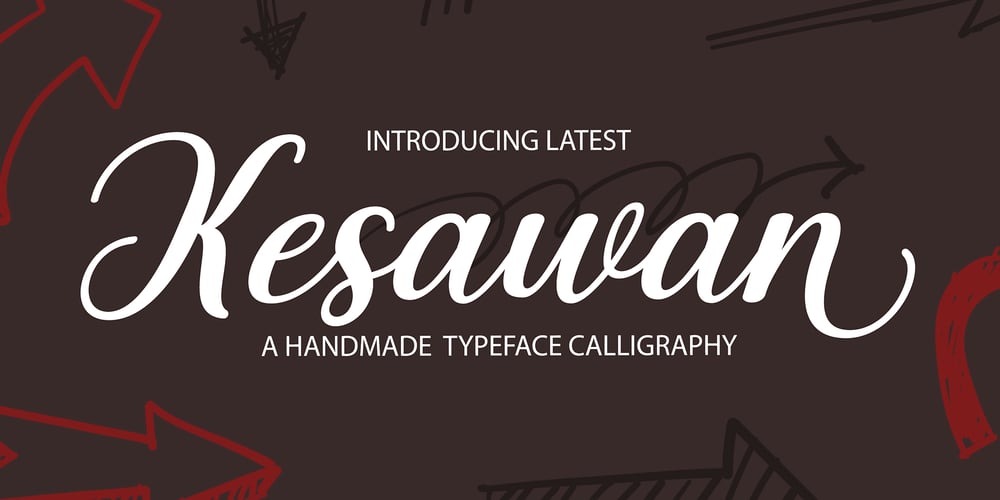
Kesawan Script Font Family was designed by Afri Giani and published by Gian Studio. Kesawan Script contains 1 styles and family package options. Introducing the new elegant Kesawan Script Calligraphy Font! For those of you who need a touch of elegance and modernity to your designs, this font is made for you!Kesawan Script Calligraphy is built with OpenType features and includes start and end swashes, alternate character swash for most lowercase letters, numbers, punctuation marks, alternatives and also supports other languages 🙂